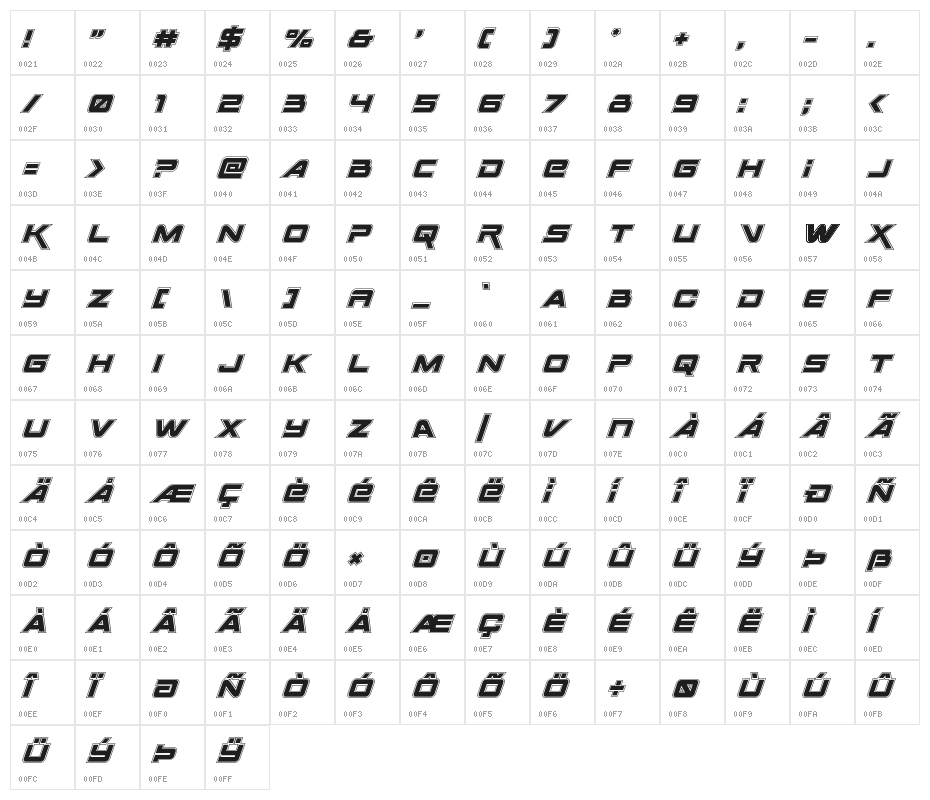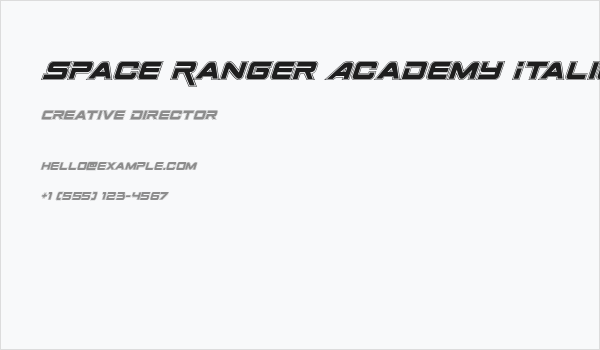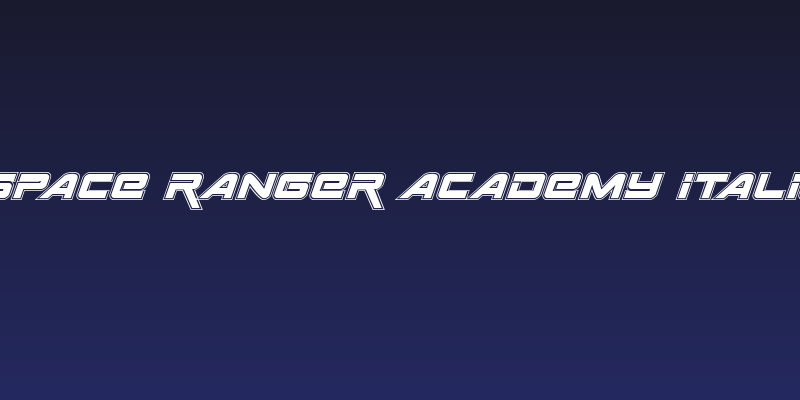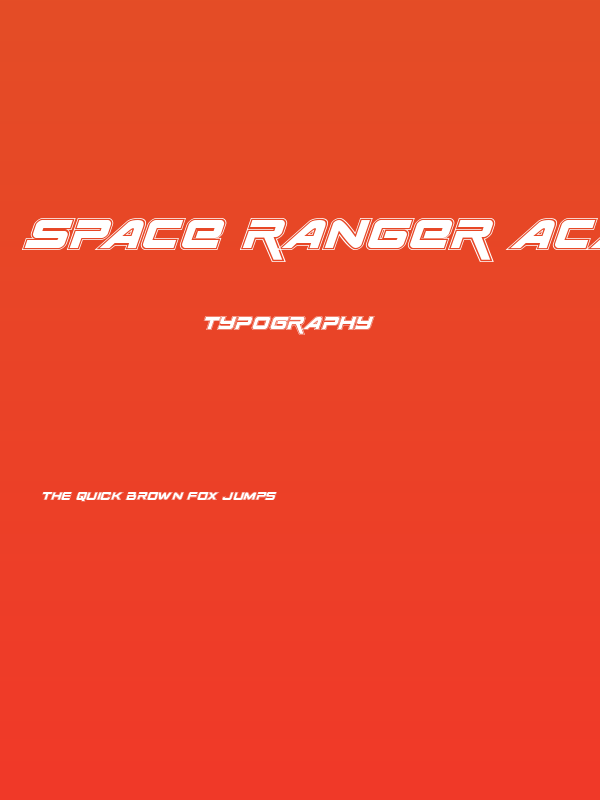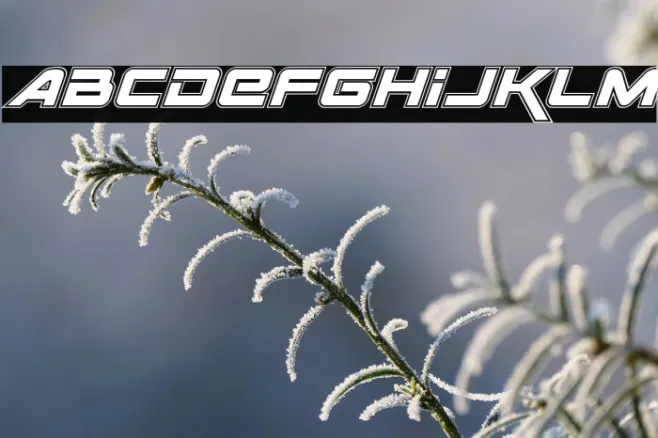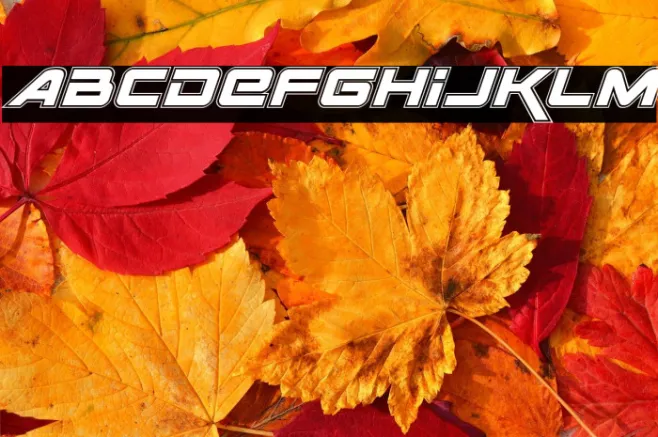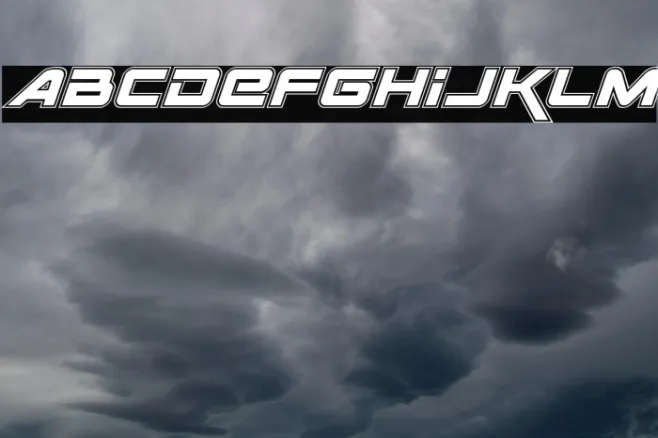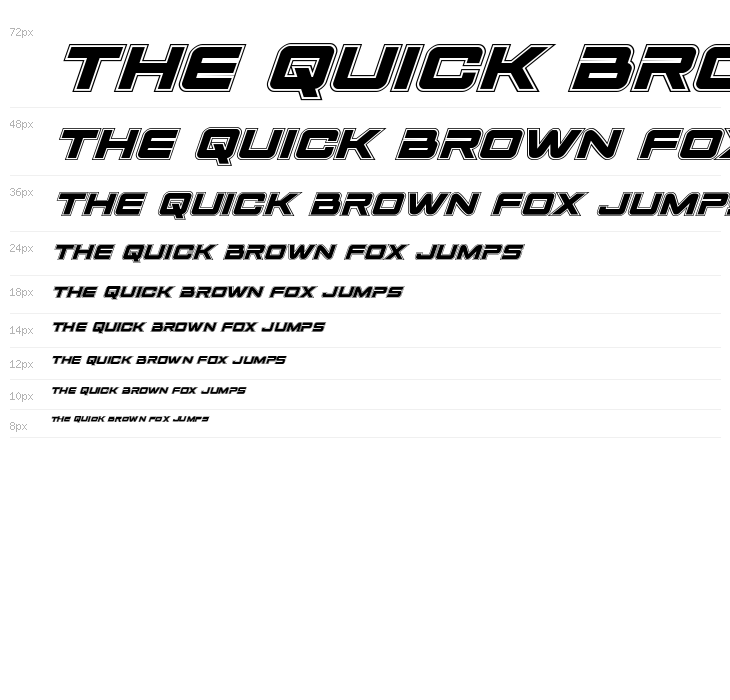
Space Ranger Academy Italic Font
Space Ranger Academy Italic Description
This font features a futuristic and dynamic design with a bold, italicized style. The characters are outlined, giving them a three-dimensional appearance that enhances their modern and sleek look. The angular and sharp edges of the letters convey a sense of speed and movement, making it ideal for projects that require a sense of energy and forward-thinking. The uppercase and lowercase letters maintain a consistent style, while the numerals and special characters complement the overall aesthetic. The font's unique design makes it stand out, perfect for creative and innovative applications.